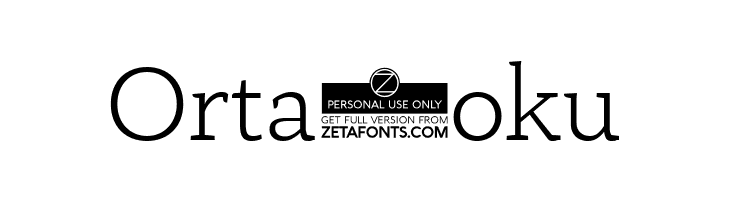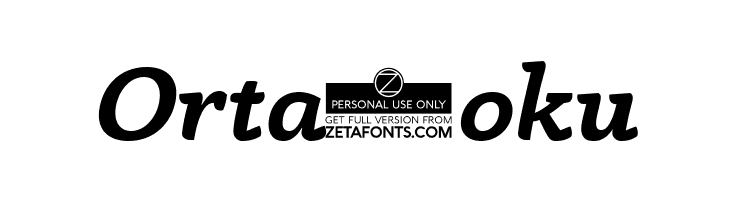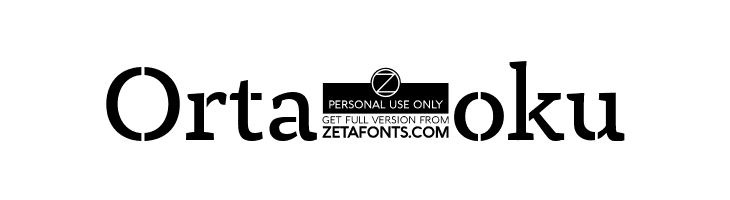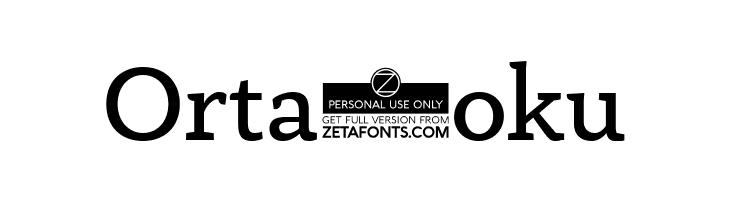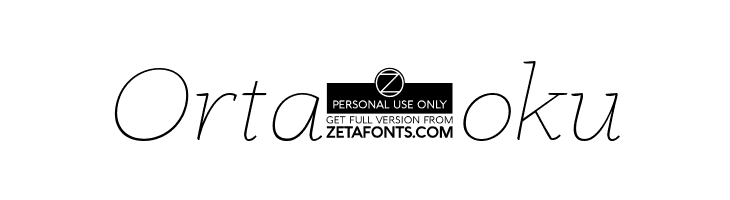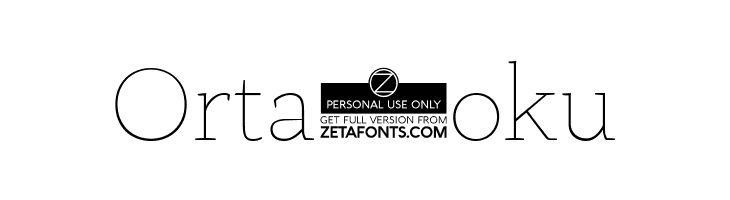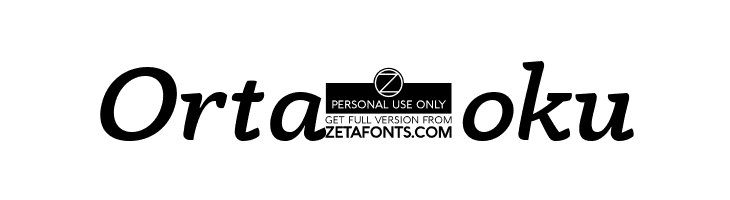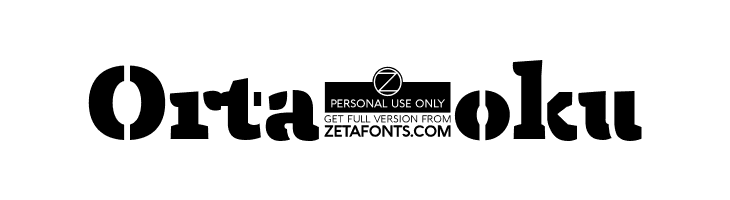
A clean, elegant font with a light weight and modern, slightly condensed design.
A bold and italicized font with strong, slanted strokes and a dynamic presence.
A bold stencil font with geometric shapes and modern industrial style.
A classic serif font with a balanced and elegant appearance.
A thin, italicized font with elegant and sophisticated design.
A thin, elegant font with a modern, minimalist style.
A light, italicized font with a refined and elegant style.
A modern, thin stencil font with clean lines and geometric shapes.
A medium weight, italic serif font with elegant curves and subtle serifs.
A bold, stencil-style font with strong, blocky letters and distinct gaps.